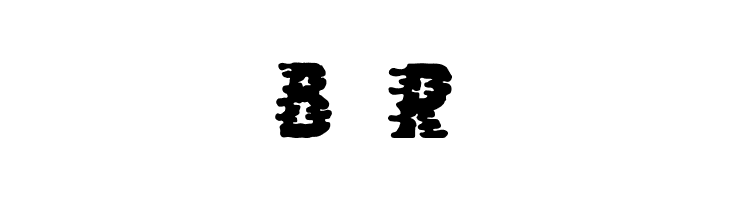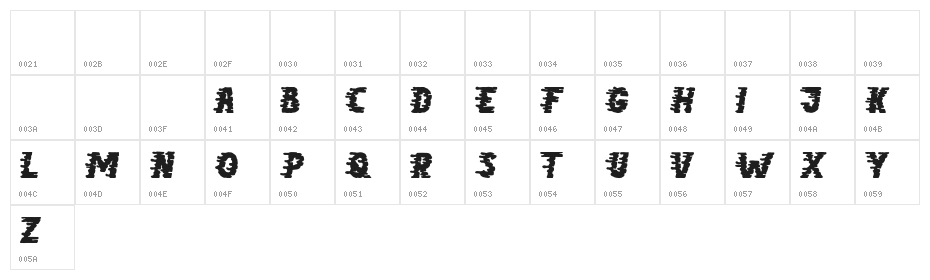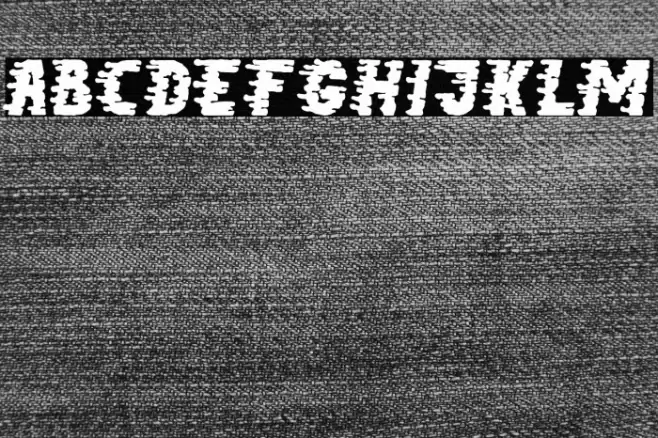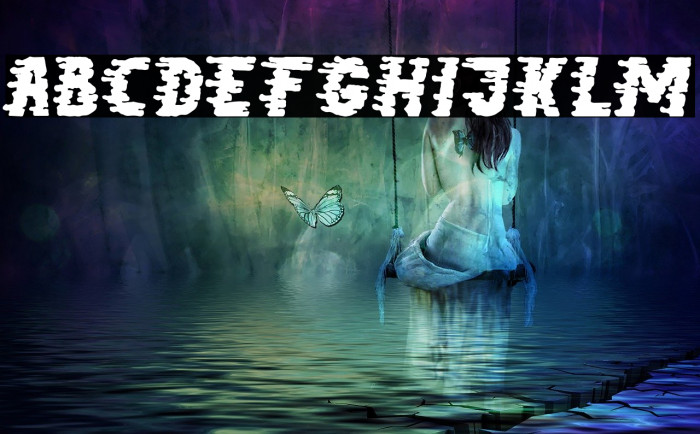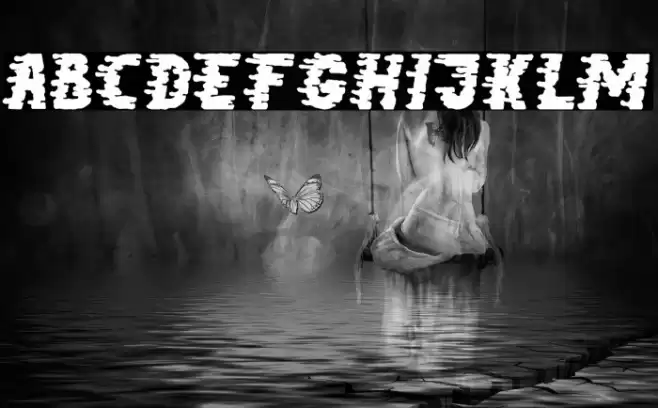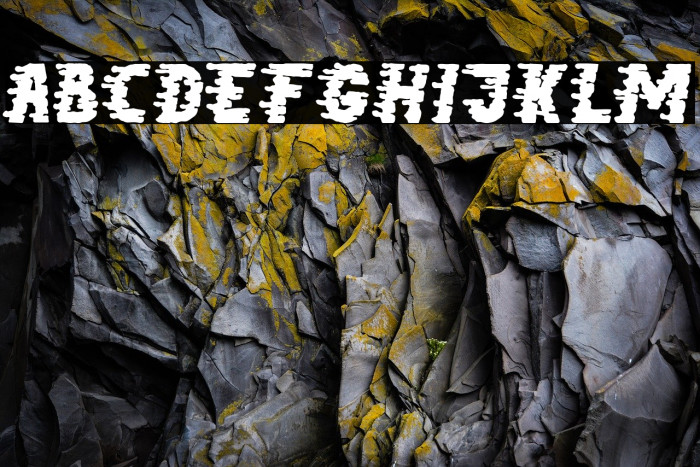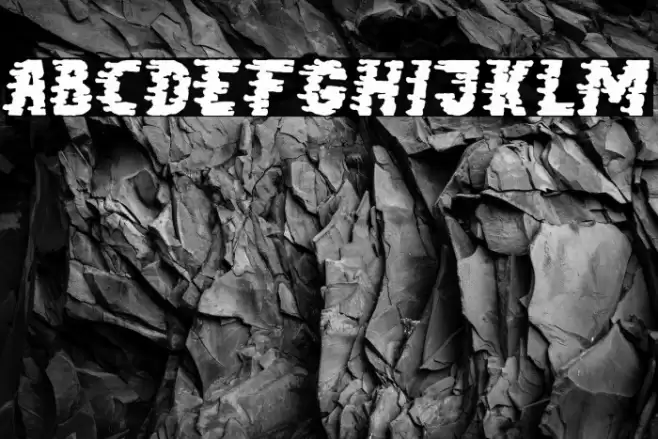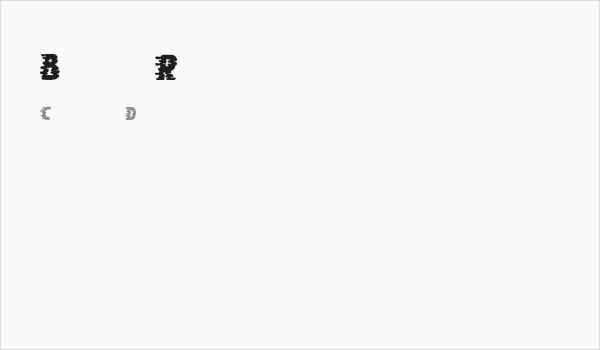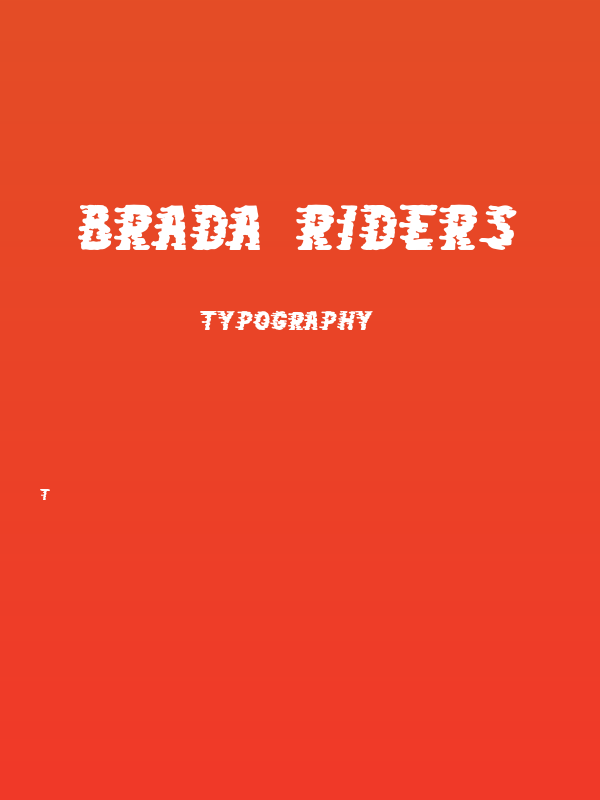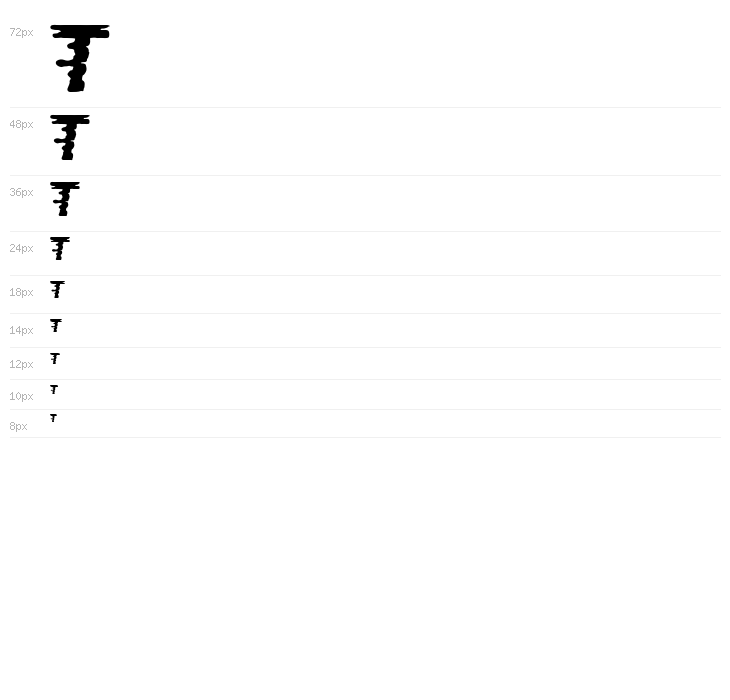
Brada Riders Font
Brada Riders Description
This font features a bold and rugged design with a distressed, textured appearance. The characters are uppercase only, with a unique, jagged edge that gives them a dynamic and energetic feel. The style is reminiscent of graffiti or street art, making it ideal for projects that require a bold statement. The font's irregular edges and bold strokes create a sense of movement and intensity, perfect for capturing attention. The spacing between characters is relatively tight, enhancing the compact and impactful look of the text. This font is best suited for display purposes where a strong visual impact is desired.
| Proposed Projects | Ideal for posters, album covers, streetwear branding, and any project needing a bold, edgy look. |